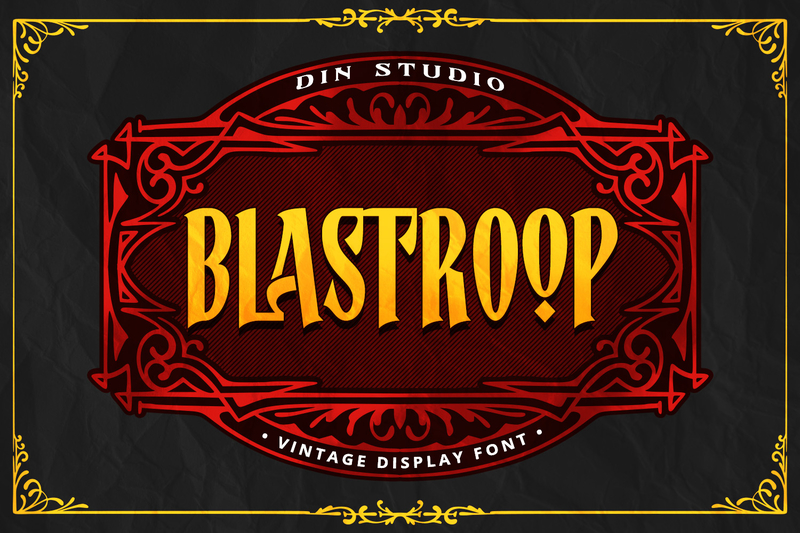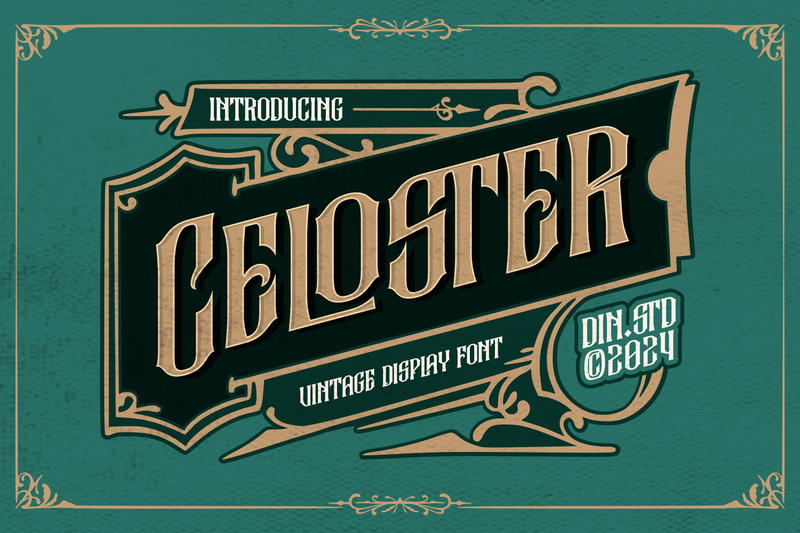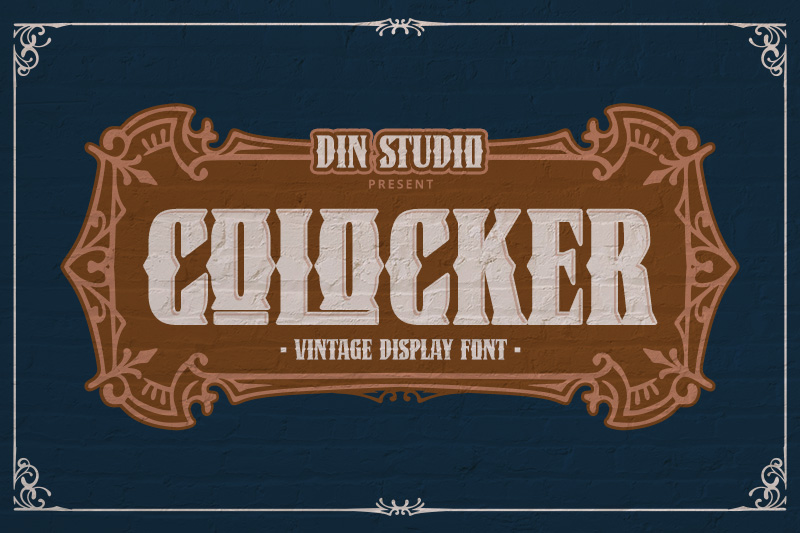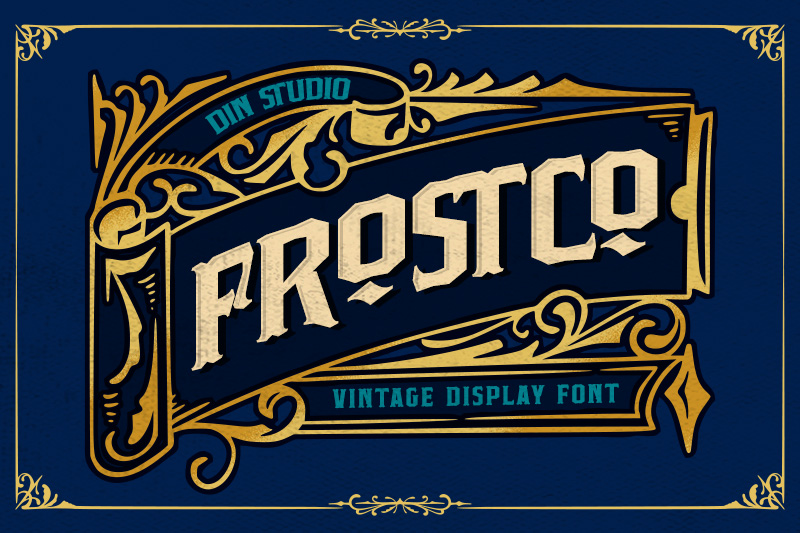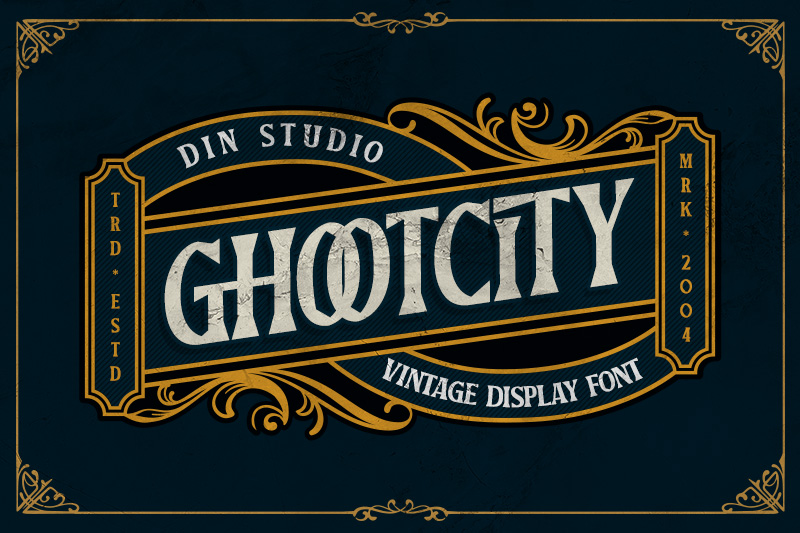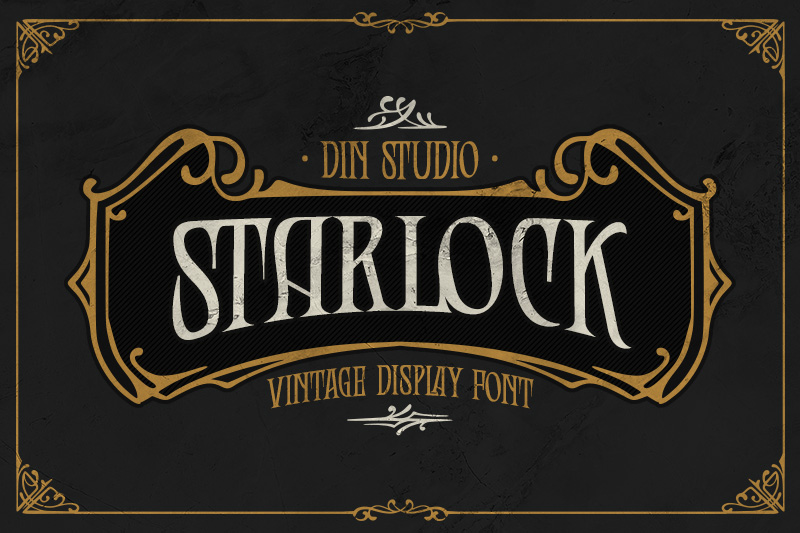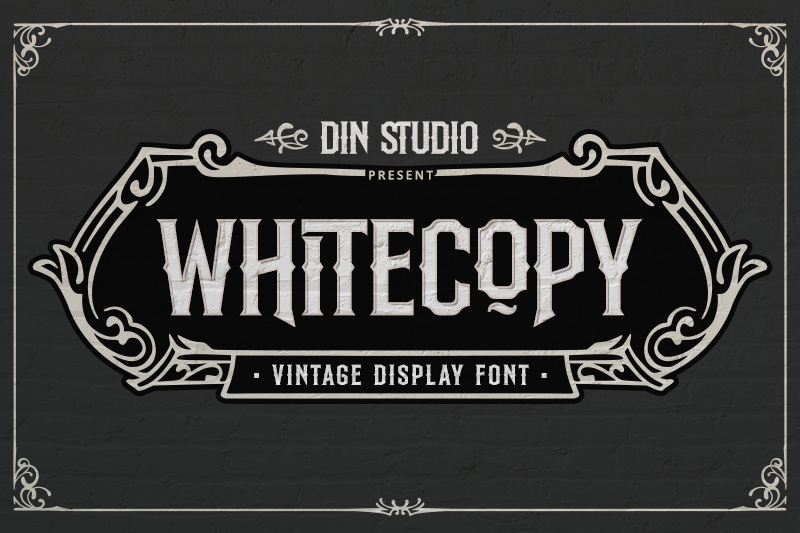
10 Most Recommended Old Vintage Fonts in Modern Designs
Before we explore the 10 top old vintage fonts that beautifully blend nostalgic charm with contemporary design techniques, let’s take a closer look at the concept of vintage itself. Have you often come across the term vintage in the world of design? This term describes products or fashions that originate from a bygone era. As time progresses, the term expands in scope, adapting to its application across various sectors like fashion, automotive, and decoration.
Old vintage fonts aim to capture attention with their thick letters, diverse textures, and distinctive designs in every project. That is why old vintage fonts regain their fame in modern designs, especially for designers who wish to present a nostalgic vibe in their artwork. These fonts bring warmth and friendliness that resonate well with the audience. Additionally, they evoke a sense of nostalgia for a bygone era while still being relevant in the modern world.
Old vintage fonts will add a unique appearance to your fashion or graphic branding, as well as your social media presence. This reflects wide cultural trends that indicate the ongoing popularity of vintage themes. Besides, the combination of classic elements with a modern touch makes old vintage fonts ideal as a powerful visual communication tool, be it in digital or print design.
This article delves into the top 10 old vintage fonts that we highly recommend for modern designs, thereby enhancing your creative projects. Without further ado, let’s get into it!
Characteristics of Old Vintage Fonts
To inspire a deep sense of nostalgia and emotional connection, let’s explore the defining traits of old vintage fonts:
Elegant and decorative typography
Many vintage fonts feature intricate decorations like curvy lines, sharp edges, or floral details that evoke the charm of the Victorian Era.
Bold Serif Aesthetic
Secondly, vintage fonts frequently feature bold and striking serifs, whether sharp or rounded, infusing a design with a timeless elegance.
Distressed and Textured Finish
Third, certain vintage fonts showcase grunge effects, rough textures, or distressed appearances, reminiscent of letters produced by an old printing press.
Robust and solid characters
The letter shapes are striking and audacious, capturing the audience’s attention effortlessly. The aesthetic evokes the charm of classic posters and retro shop signage.
Complementary colors and designs
This combination works best with colors like dark brown, cream, maroon, faded gold, or navy blue, complemented by a symmetrical and timeless layout.
10 Most Recommended Old Vintage Fonts
Blastroop
The first one on the list is Blastroop. This vintage font exudes a classic charm with every stroke it showcases. Blastroop, crafted in a striking capital letter style with a delicate weight, exudes a timeless charm thanks to its harmonious letter proportions. Furthermore, the slightly irregular outlines and smooth curves bring a charming vintage aesthetic to the design.
Celoster
Next is Celoster. It is the perfect option for those looking to convey a powerful visual message with style. This font shows a design with capital letters, much like Blastroop. However, the letters are bold and closely resemble one another, captivating the audience’s attention. Instead of straight lines, its outlines look curvy and smooth, making it even more unique.
Closture
Closture stands out as a timeless vintage font, exuding a bold and captivating presence. Moreover, it has a consistent proportion, creating a visually balanced and harmonious appearance. This font exudes a timeless charm, providing a sense of nostalgia in every design you create.
Colocker
Colocker is a sturdy display font that combines a vintage look with a bold appearance. Furthermore, the thick-weighted uppercase format of this old vintage font features uneven outlines that resemble genuine handwriting.
Frostco
Introducing Frostco, an old vintage font that steals attention with its rough presence. This font stands out due to its unique outlines featuring uneven yet smooth curves. This distinctness contributes to its authentic handwriting appearance, making it a suitable choice for retro-themed design projects.
Ghootcity
Ghootcity is a bold, vintage-themed display font that radiates strength and personality. This font, featuring a perfectly balanced uppercase design, is sure to enhance the visual appeal of your project. This font offers sharp outlines that enhance its overall presence. Meanwhile, the vintage charm of this font adds a sense of nostalgia to your design.